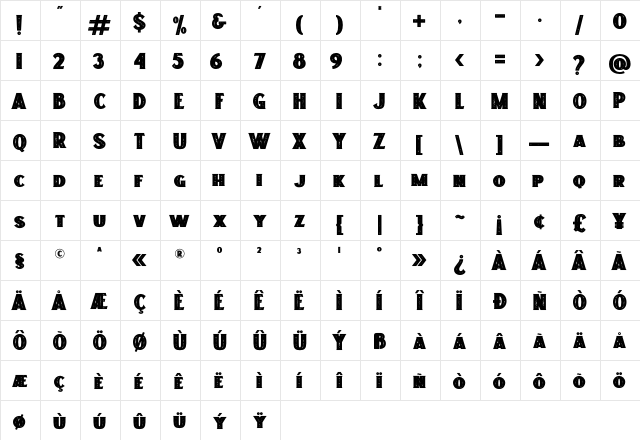
Freakland Regular
Design Context for Freakland Typeface
Freakland offers clean, dependable letterforms without strong stylistic allegiance, making it a practical choice for designers who need flexibility.
Pro Tip: Use Freakland in both headline and body roles to test its range before committing to a single application.